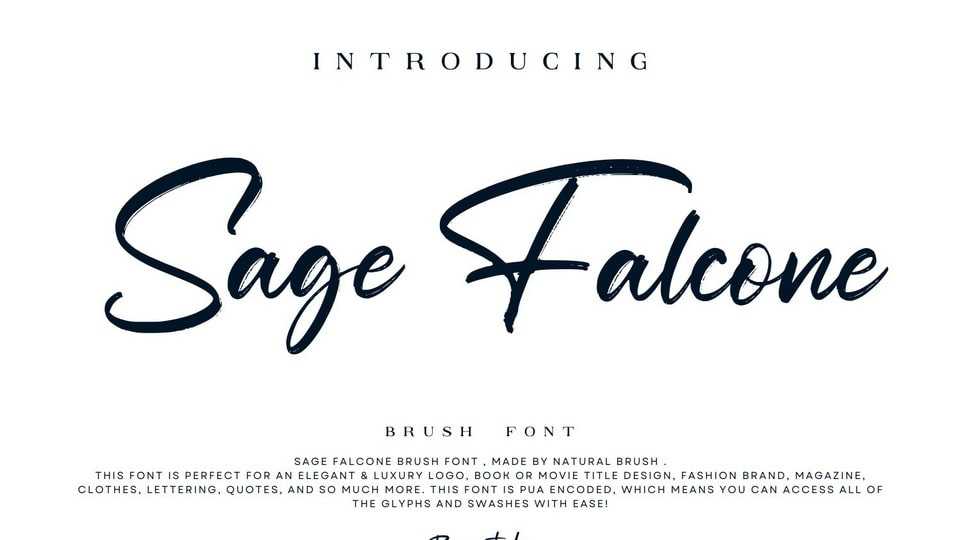
Download Sage Falcone font, a dynamic hand lettered brush typeface, made with an organic flow and clean style. This font is perfect for an magazine, clothes, quotes, and so much more.